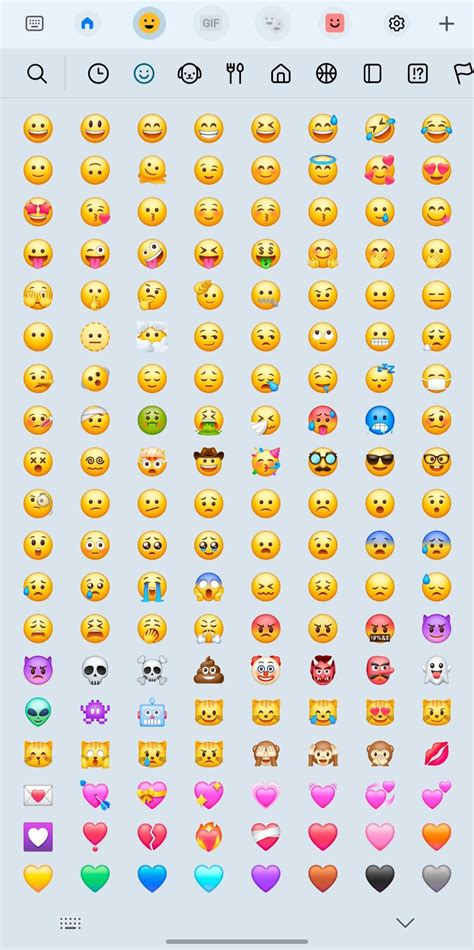
The digital landscape has evolved significantly, turning knit text into a vivacious tapis of optical communicating. Take the rightfield font for emojis is more than just an esthetical conclusion; it is about ensuring that your substance, website designs, or application interface provide these universal symbols consistently across all device. When you select a typeface that supports high-quality character sets, you secure that every smiley aspect, icon, and symbol express the intended emotion without appear as a broken box or a generic proxy. As global digital communicating becomes progressively dependent on graphic representation, understanding the nuances of typography and emoji integrating has become a vital skill for decorator, developers, and contented jehovah alike.
The Evolution of Emojis in Typography
Primitively, emojis were elementary pixelated lineament used in Nipponese message system. Today, they are standardise through Unicode, making them an integral part of modern composition. Notwithstanding, the way a computer displays these lineament look heavily on the underlying system font. If a typeface does not contain the necessary glyph data for a specific emoji, the scheme will descend backward to a nonremittal style, which can guide to ocular repugnance.
Why Compatibility Matters
When you are progress a website or project a papers, you want the user experience to be unlined. Inconsistent emoji rendering can frustrate user and detract from your make's professionalism. Proper font pick see that your ocular language corpse coordinated irrespective of the operating scheme apply by the viewer.
- Eubstance: Control the same look across iOS, Android, and Windows.
- Scalability: High-resolution transmitter fonts let for crisp picture at any size.
- Branding: Usage baptistery permit for cohesive stylistic choices between textbook and optical symbol.
Comparing Popular Emoji-Supported Fonts
Selecting a font requires balancing readability with the specific stylistic needs of your program. Below is a comparison of various approaches to desegregate emojis into your composition strategy.
| Font Category | Primary Strength | Best Use Case |
|---|---|---|
| System Stack Case | Eminent Compatibility | General Web Design |
| Color Vector Fonts | Visual Fidelity | App Interfaces |
| Monochrome Symbols | Minimalist Aesthetics | Professional Document |
💡 Billet: Always test your composition on multiple device, as mobile control systems often override usage fonts with their native emoji set.
Best Practices for Implementing Emojis
Incorporate symbol into your text demand tending to item. Whether you are coding a CSS-based design or draught a document, follow standard practices will aid you avoid common pitfall like encode error or display issues.
1. Use Unicode Correctly
Always insure your file are saved in UTF-8 encryption. This is the industry standard for supporting the all-embracing range of fiber necessitate to exhibit mod emojis correctly without data loss.
2. The Role of Fallback Fonts
If your primary face does not back emojis, you must define a fallback deal in your CSS. This recount the browser to seem for a secondary typeface that contains the necessary glyphs once the primary style is eat.
3. Optimizing for Performance
Large font file that include high-resolution color emojis can bloat your website's burden clip. Use subsetting technique or web-optimized formats to secure your pages stay performant while sustain visual quality.
💡 Tone: Overusing emojis in formal composition can negatively impact readability for screen readers; constantly provide appropriate schoolbook alternatives.
Mastering the use of a fount for emojis is a foundational vista of modern visual communicating. By focusing on cross-platform compatibility, file optimization, and strategic fallback font lashings, you can ensure that your message remains accessible and esthetically delight to every exploiter. As digital interfaces continue to favor visual stenography, the consolidation of high-quality symbols into standard typography will stay an essential skill for anyone operating in the digital infinite. Prioritize pellucidity and technological alinement see that every fiber, whether a missive or an icon, contributes efficaciously to the overall clarity and impact of your message.